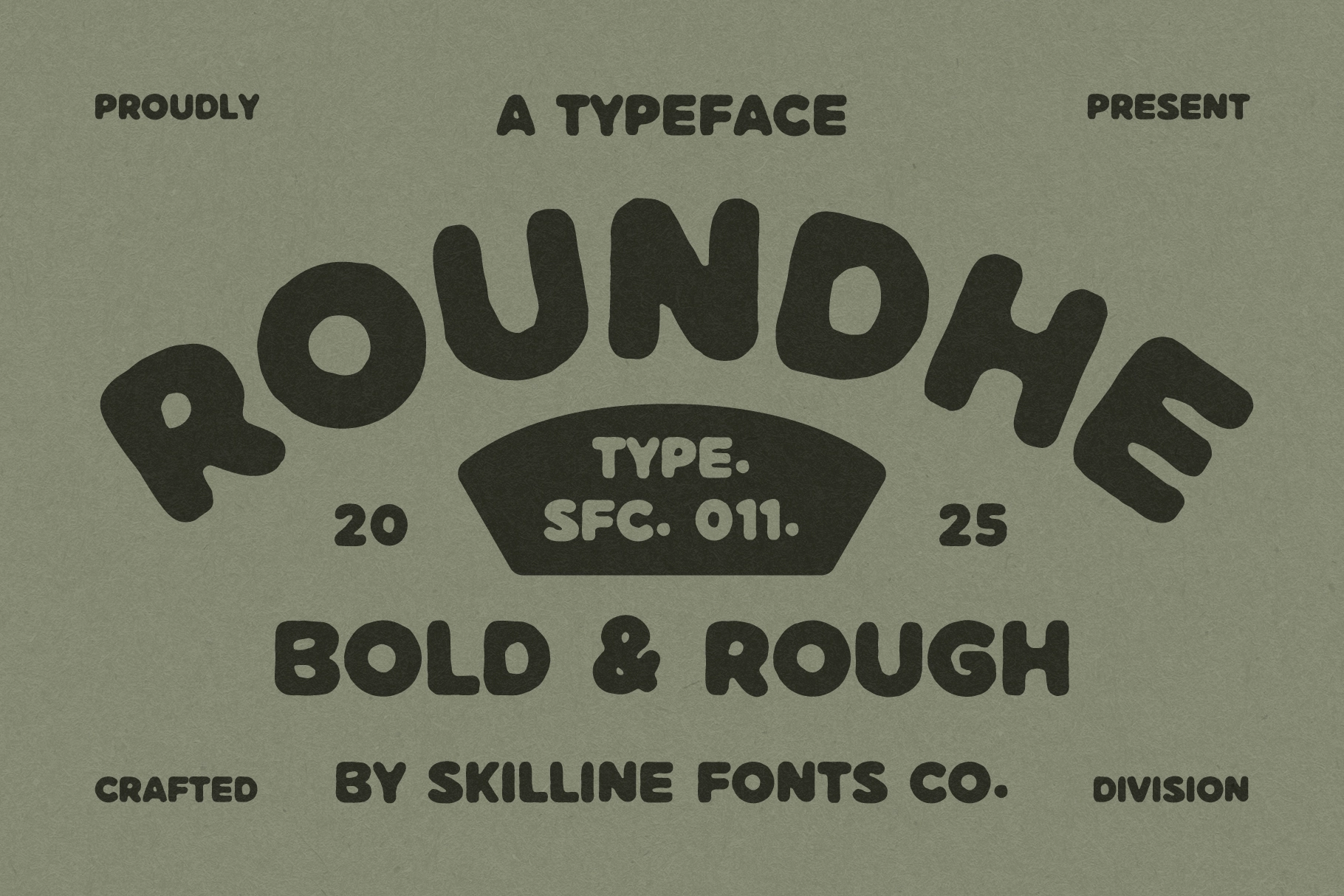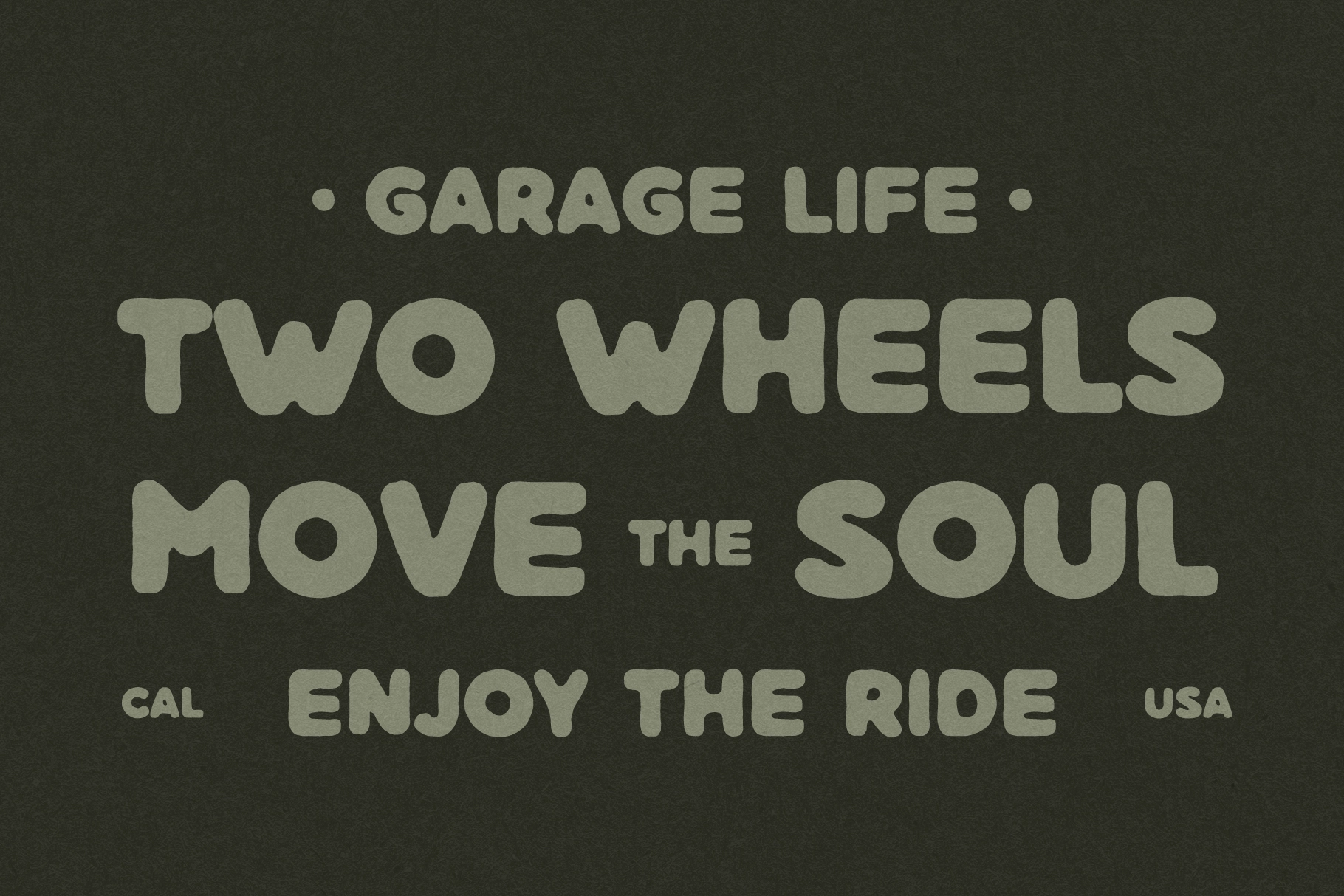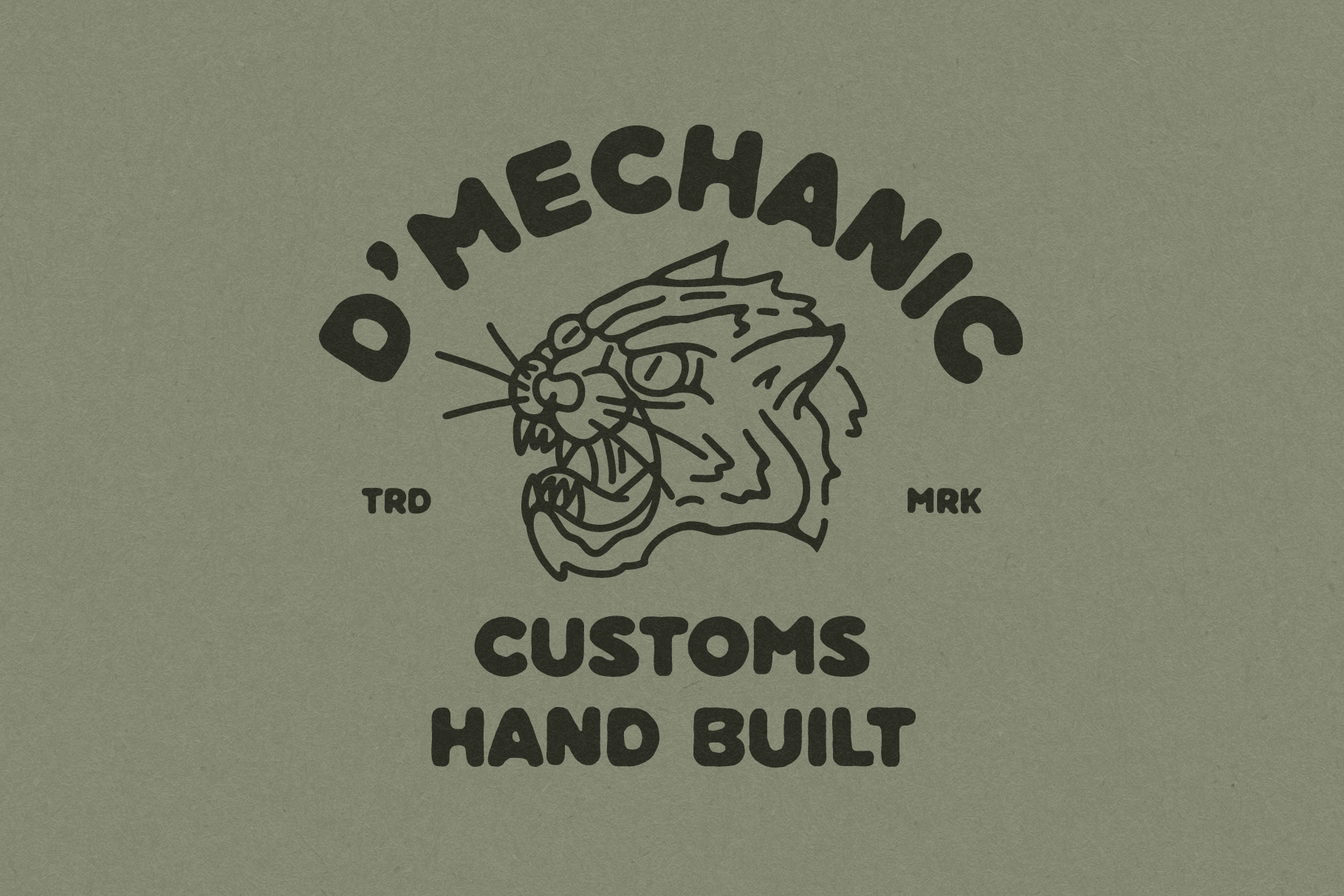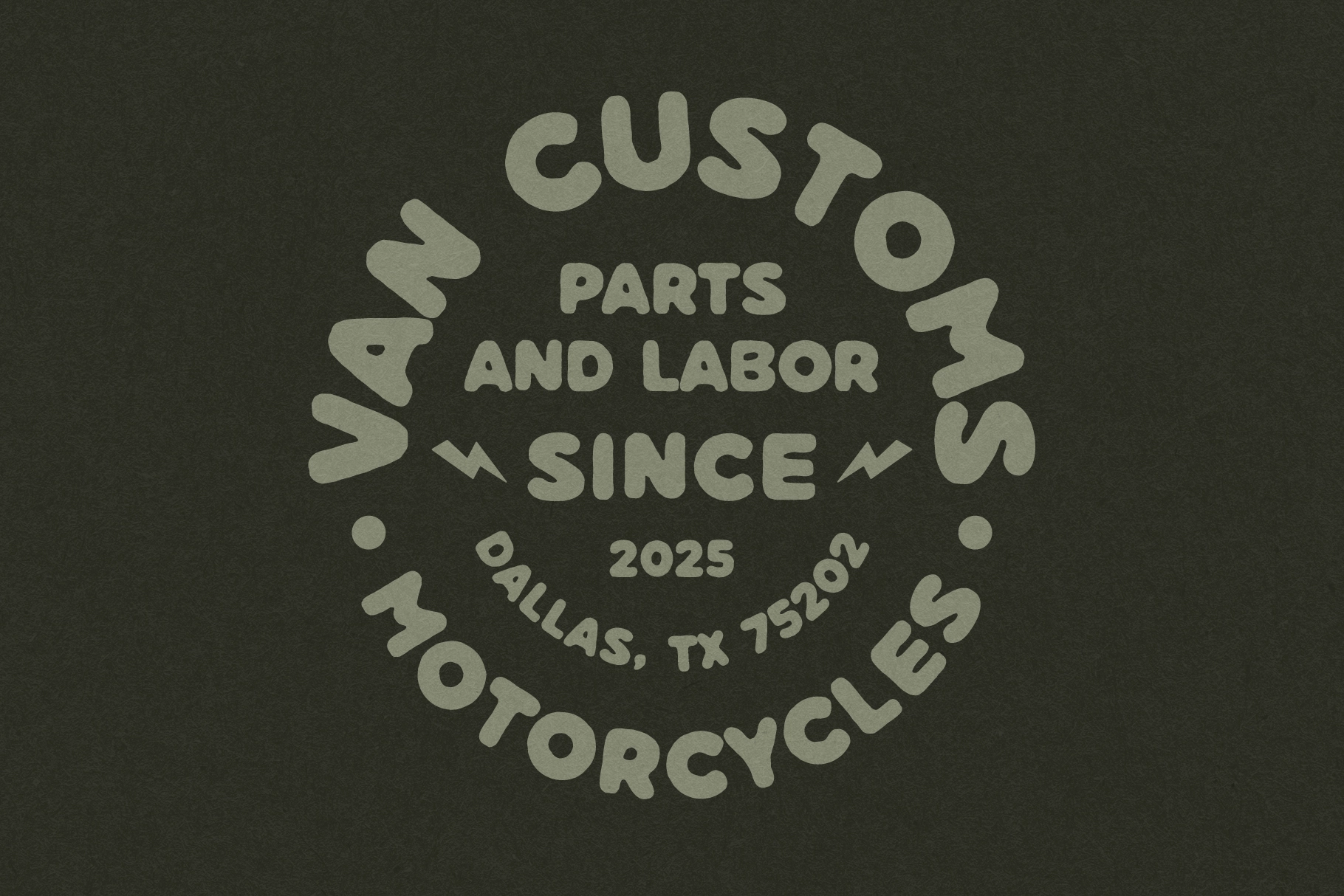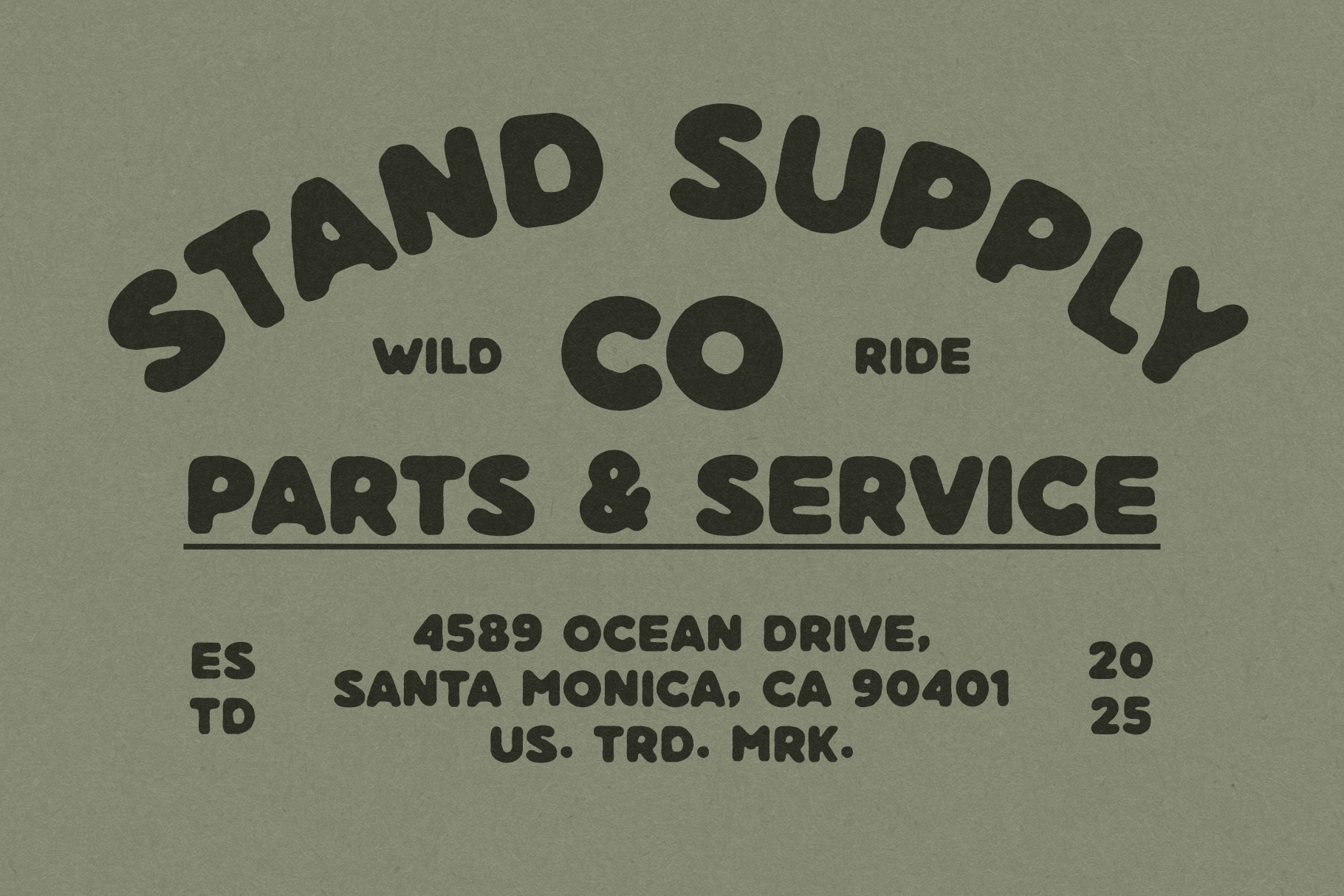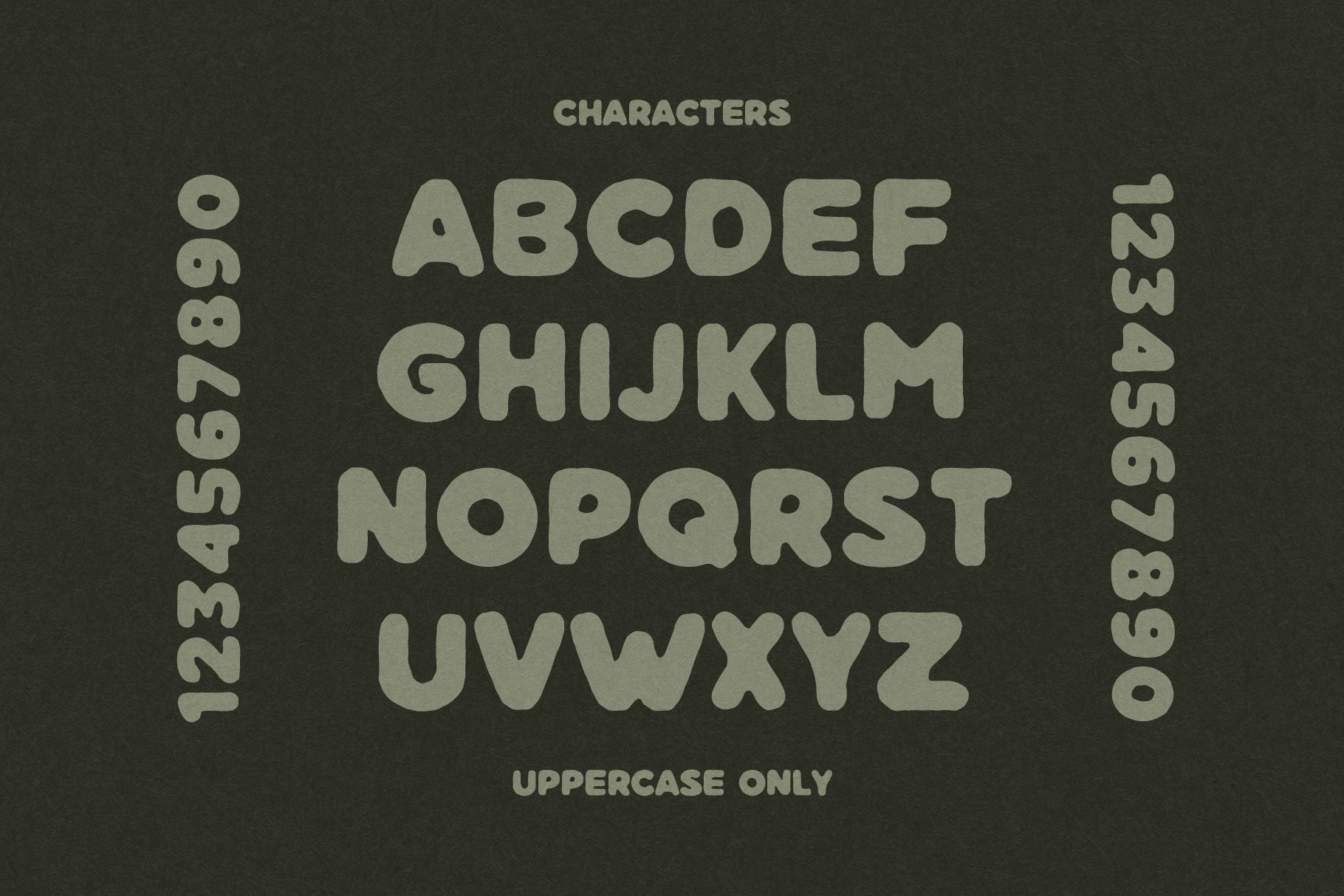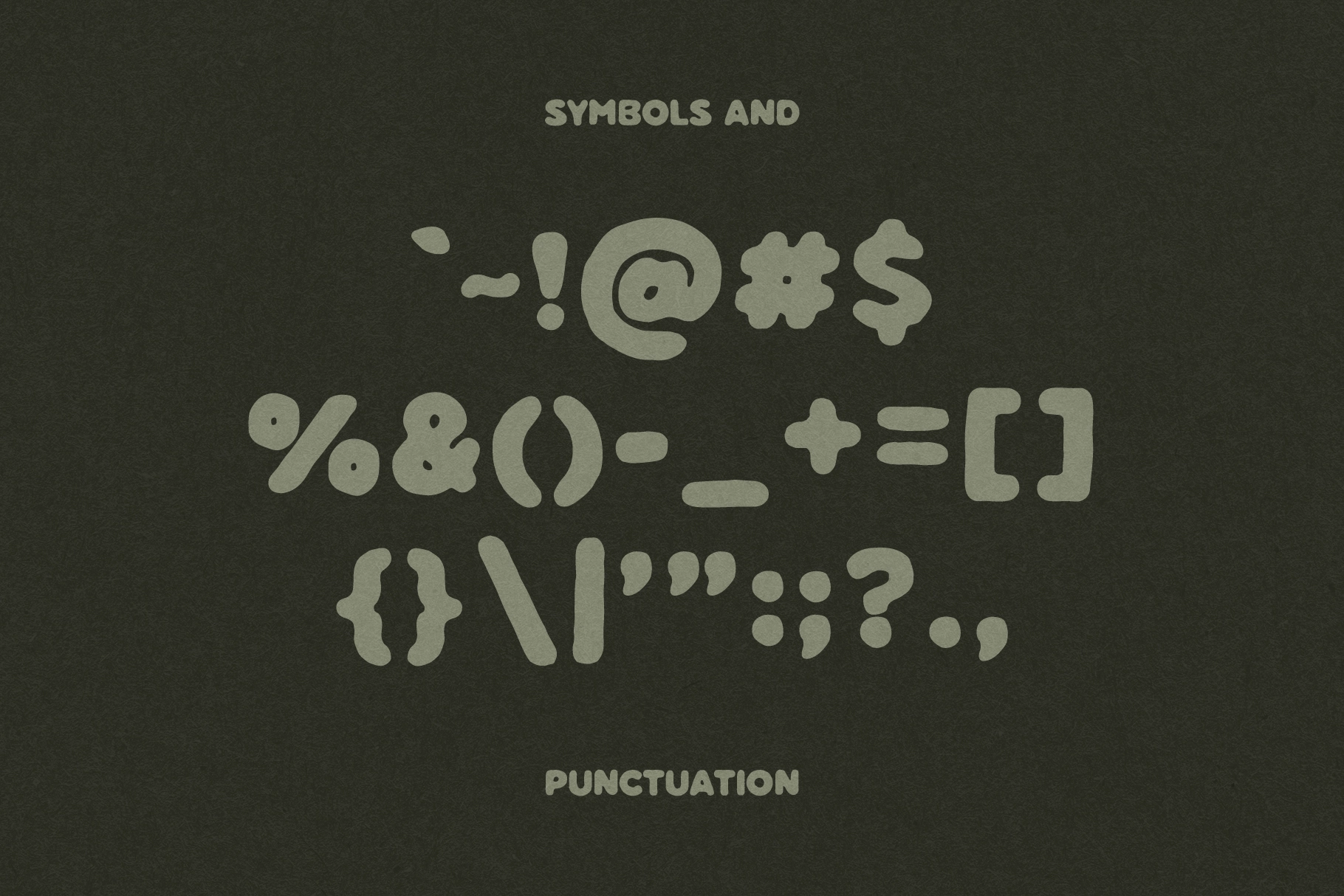
Roundhe - Bold Rough Display Font
Roundhe is a bold, rough-edged display font that combines retro playfulness with handcrafted imperfection. Inspired by vintage sign painting and hand-drawn bubble lettering, Roundhe captures a lively, organic energy that feels both nostalgic and fresh. Each curve and contour is intentionally imperfect, creating a friendly and approachable visual rhythm that stands out in modern design.
Crafted by hand, Roundhe balances boldness with softness, making it ideal for designers who want strong visual impact without losing character. Its chunky, rounded shapes and textured finish evoke a sense of authenticity and warmth, perfect for playful branding, nostalgic packaging, or creative merchandise.
Whether you’re designing logos, posters, or apparel graphics, Roundhe adds a bold handmade charm that feels fun, confident, and full of life.
Ideal Applications for Roundhe
- Playful logos and branding with a retro twist
- Packaging design for creative or handmade products
- Apparel and merchandise graphics with personality
- Posters, stickers, and social media visuals
- Editorial titles, zines, motorcycle or music-themed artwork